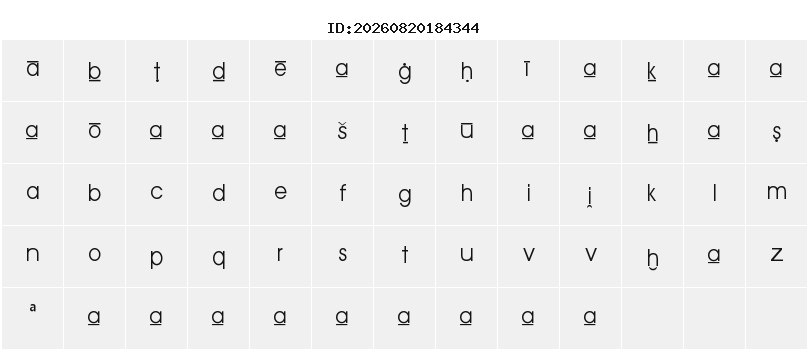
Semitische Lautschrift Preview
About Semitische Lautschrift.ttf
Semitische Lautschrift.ttf is a modern, elegant sans-serif font designed for ultimate readability and visual harmony. Perfect for branding, headlines, web design, and print materials.